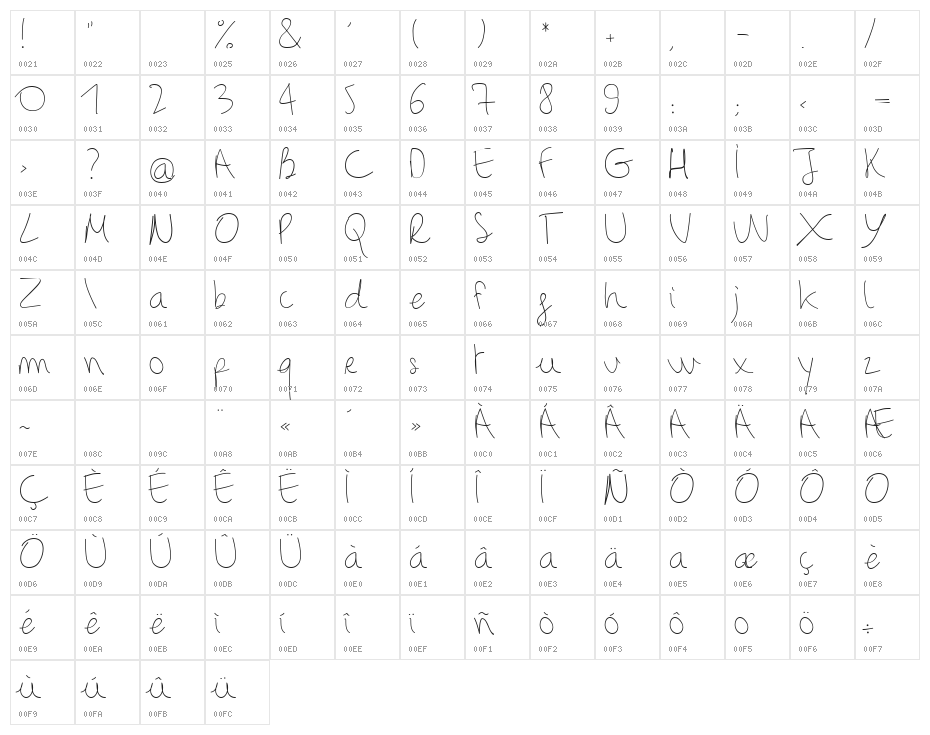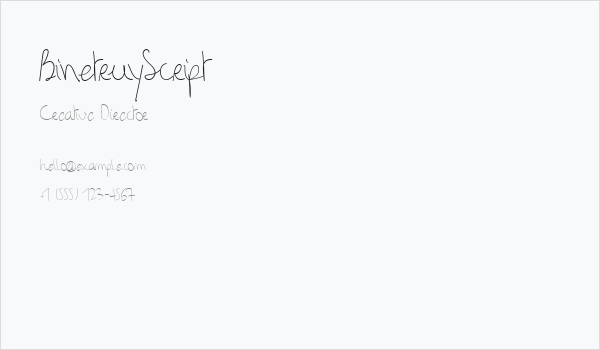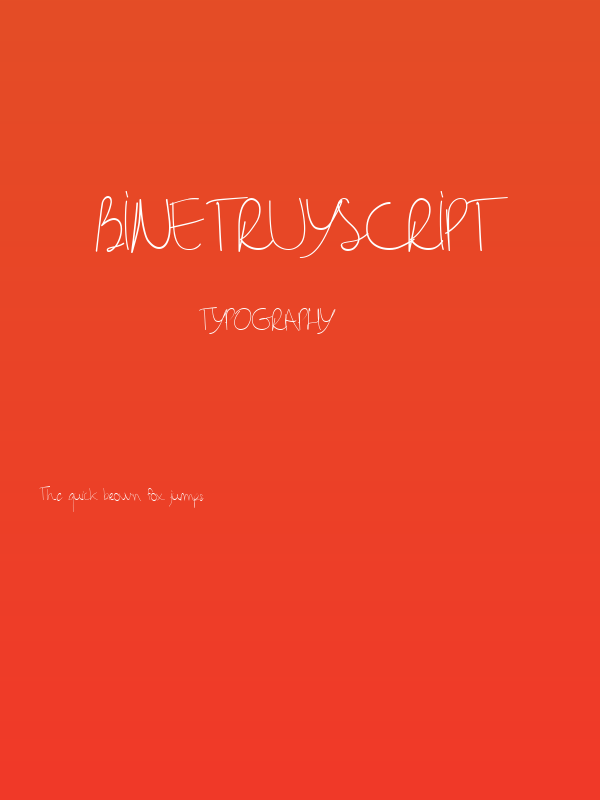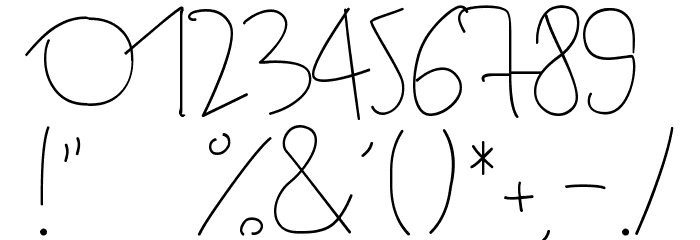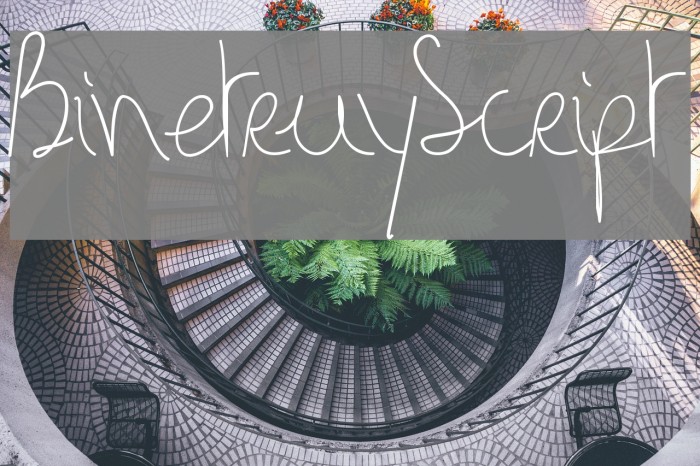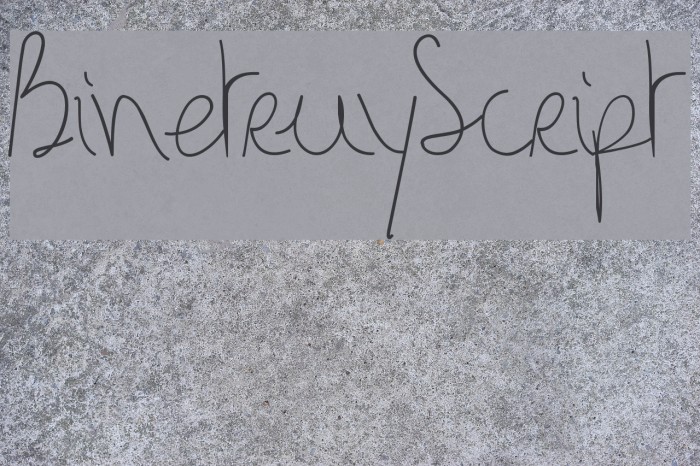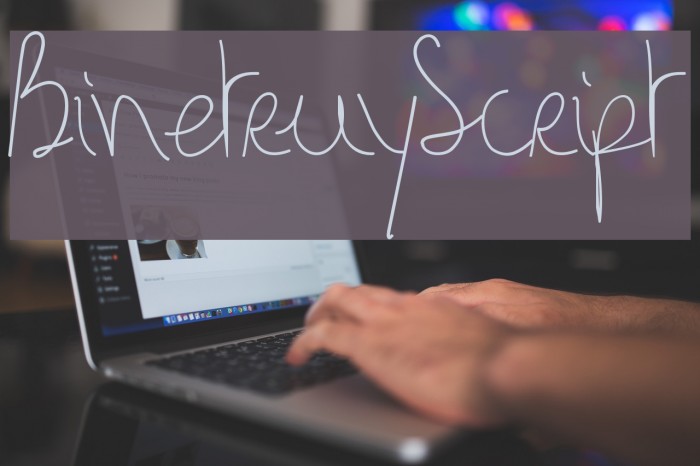
BinetruyScript Font
BinetruyScript Description
This font exudes a playful and casual handwritten style, characterized by its fluid and dynamic strokes. The letters are elongated and slightly slanted, giving an impression of speed and spontaneity. The uppercase letters maintain a consistent height, while the lowercase letters exhibit a more varied baseline, adding to the informal and lively feel. The numerals and special characters follow the same whimsical style, ensuring a cohesive look across all elements. The overall appearance is both approachable and artistic, making it suitable for projects that require a personal touch.
| Overall Style | Casual, Artistic |
| Use Case | Logos, Invitations, Social Media |
| Proposed Projects | Ideal for greeting cards, personal branding, creative invitations, and informal social media graphics. |